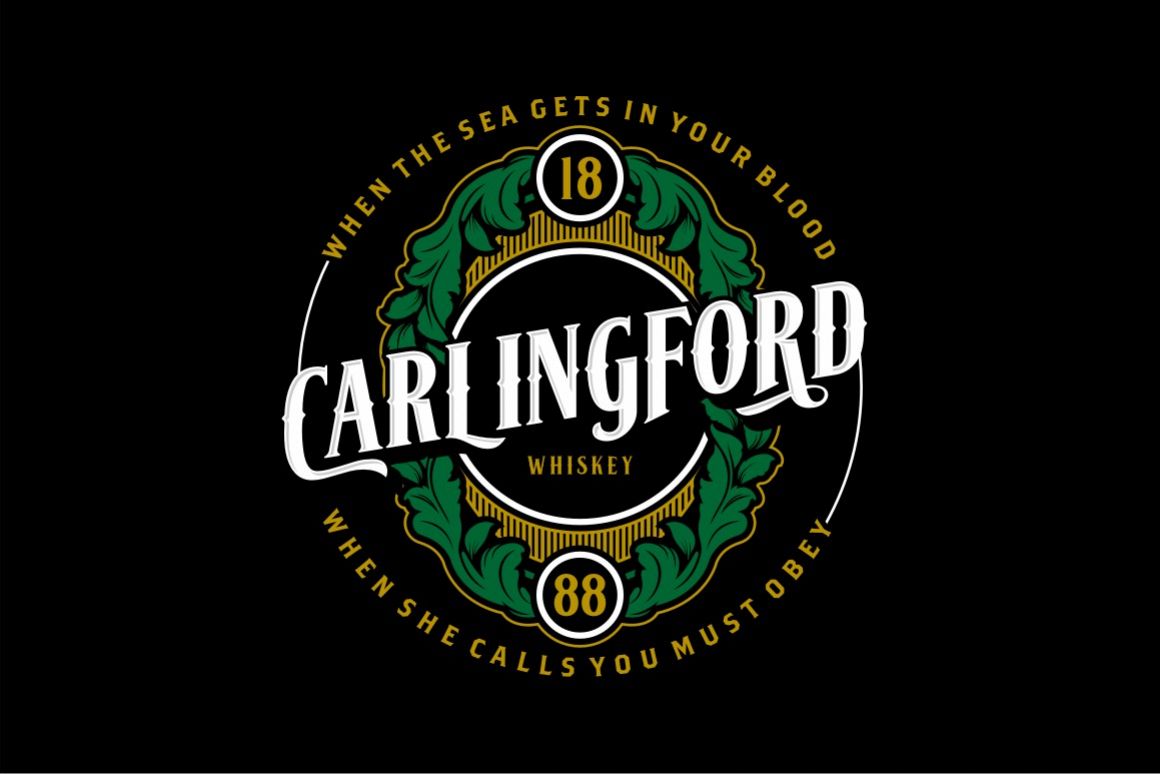
Carlingford
Introducing, Carlingford, a font with classic feel that inspired from old advertising and signage letters.
Crafted with high attention to the smooth lines and details.
Carlingford is a must have font for every typo and lettering junkie,
Packed with lots of opentype features; alternate characters, stylistic
Suits best for almost all of your designing needs; logo, labels, headline, etc.